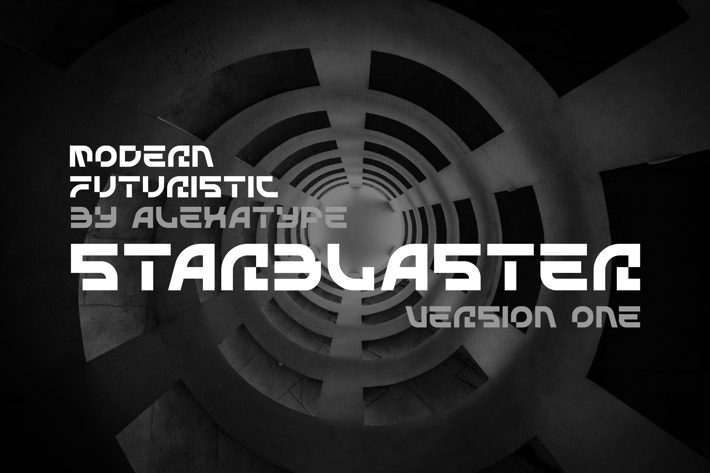
STARBLASTER - Modern Futuristic Font
STARBLASTER - modern futuristic font
With square and circle, STARBLASTER comes with unique shape and modern feels in it.
Perfect for futuristic theme article headline, space, electric, and high end digital related project.
With square and circle, STARBLASTER comes with unique shape and modern feels in it.
Perfect for futuristic theme article headline, space, electric, and high end digital related project.